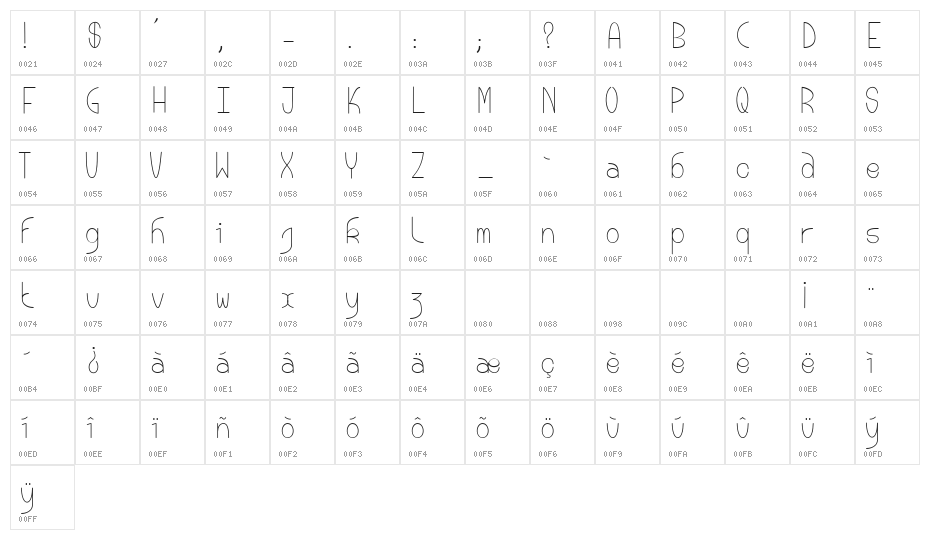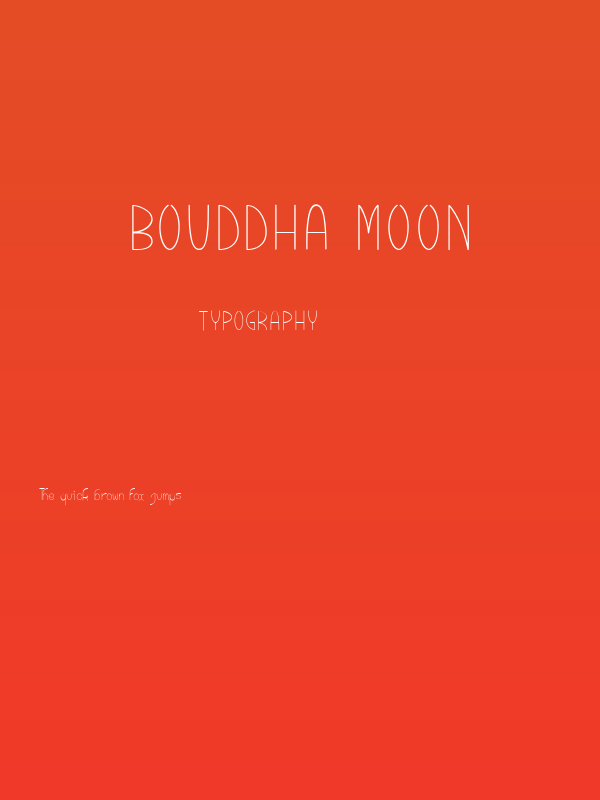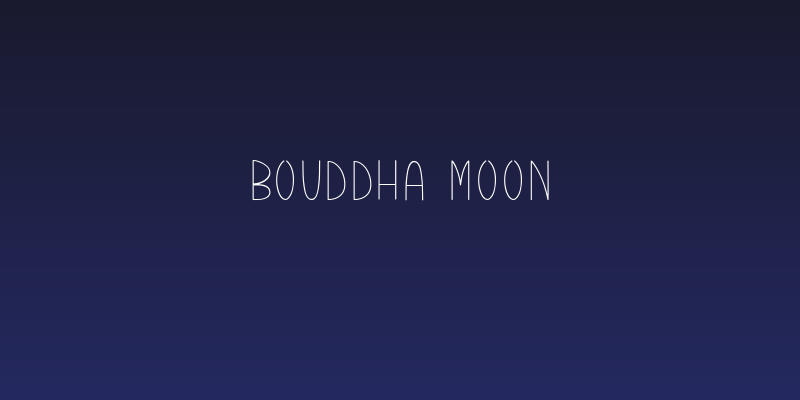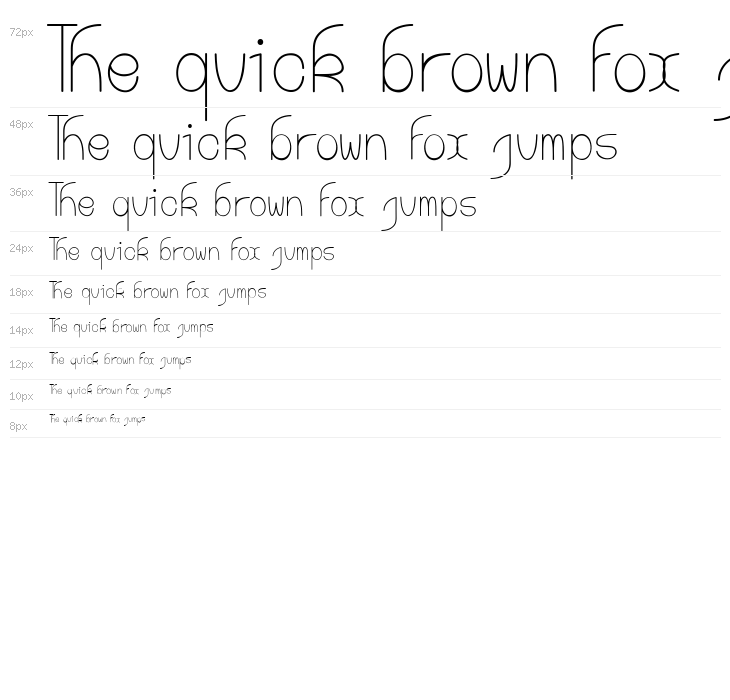
Bouddha Moon Font
Bouddha Moon Description
This font features a unique and modern design with a minimalist aesthetic. The characters are formed with thin, consistent strokes that give it a clean and elegant appearance. The uppercase letters are tall and narrow, with a slight curvature that adds a touch of sophistication. The lowercase letters maintain a similar style, with a playful yet refined look. The numerals are straightforward and align well with the overall design. Special characters are crafted with the same attention to detail, ensuring a cohesive and harmonious set. This font is perfect for projects that require a contemporary and stylish touch.
| Use Case | Headlines, Logos, Editorial design |
| Proposed Projects | Ideal for branding, editorial design, packaging, and digital media projects. |